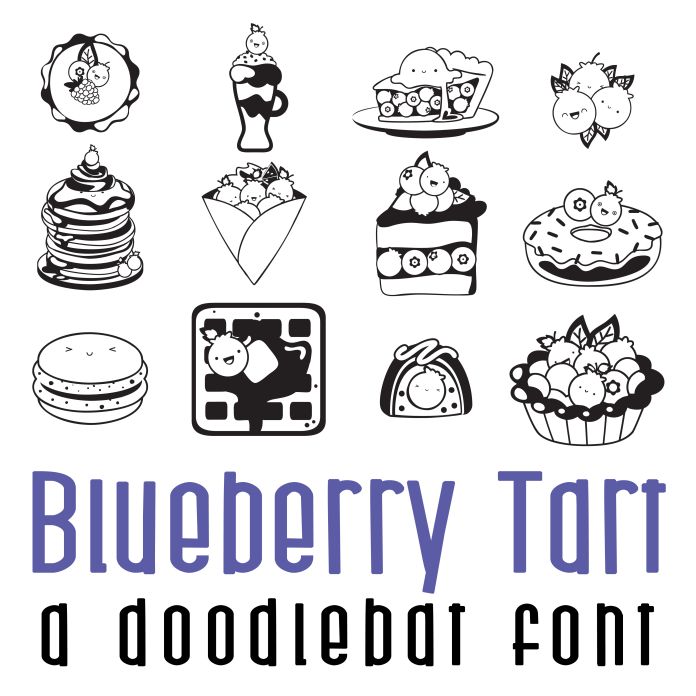
This fun doodlebat font features 26 delicous kawaii style blueberry treats perfect for cards, crafts, gifts, parties, scrapbook pages, planner stickers and more!